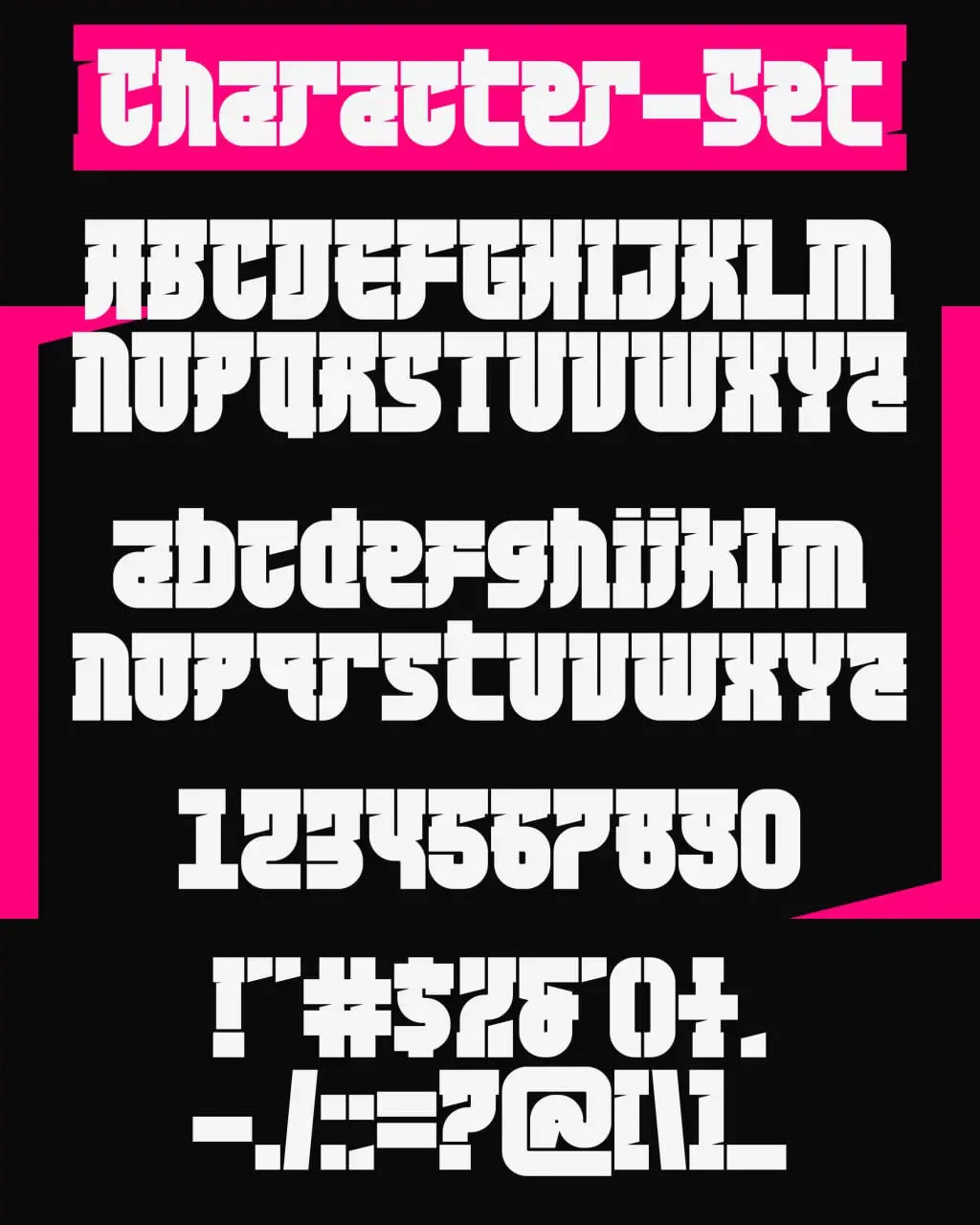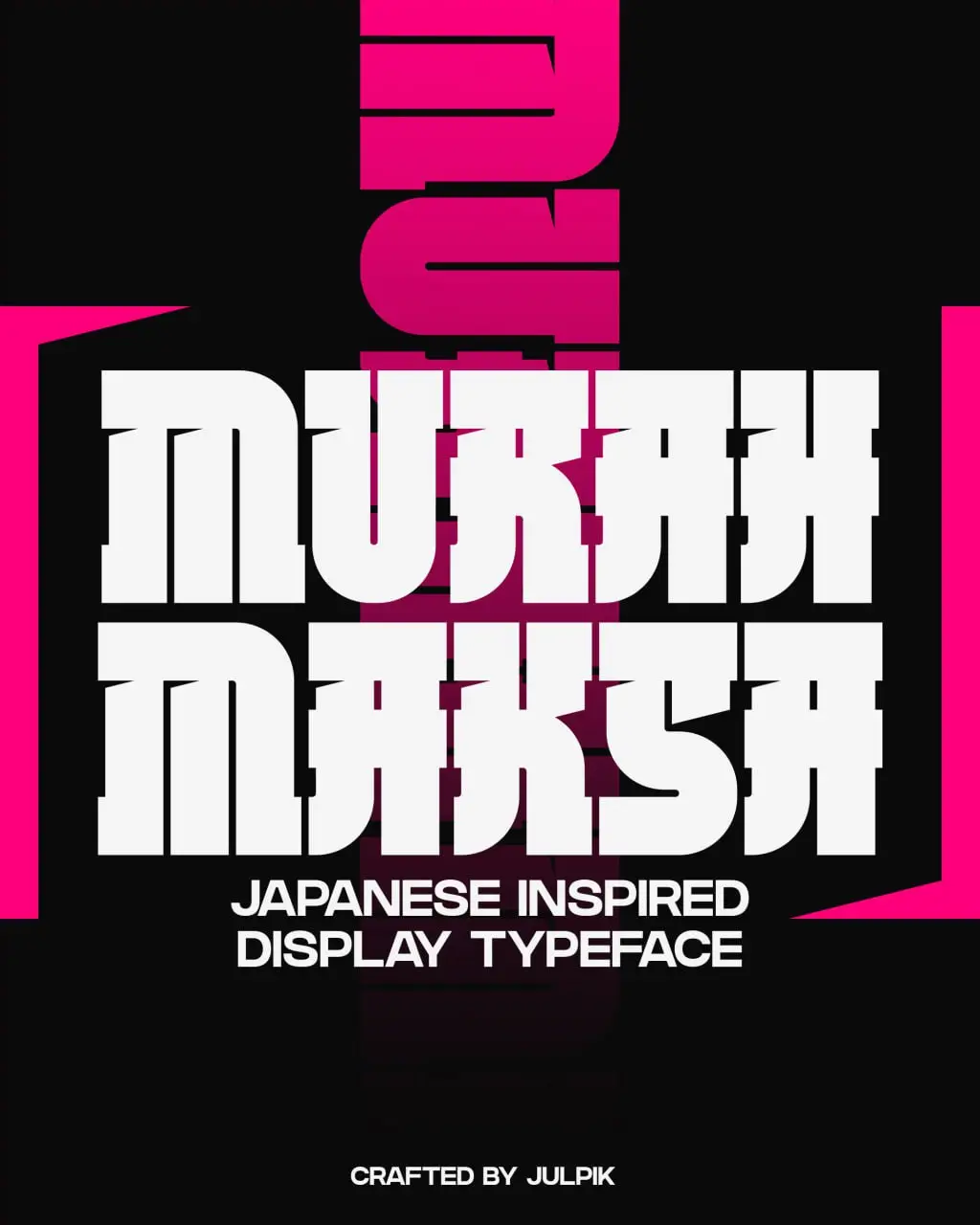
Murahmaksa Japanese Inspired Typeface
The Murahmaksa Japanese Inspired Typeface is a beautifully crafted font that draws inspiration from traditional Japanese calligraphy. This typeface features elegant strokes and unique character designs, making it perfect for various design projects.
• Stylish and artistic design
Ideal for branding, logos, web design, and print materials, the Murahmaksa typeface adds a touch of elegance and cultural richness to your projects.